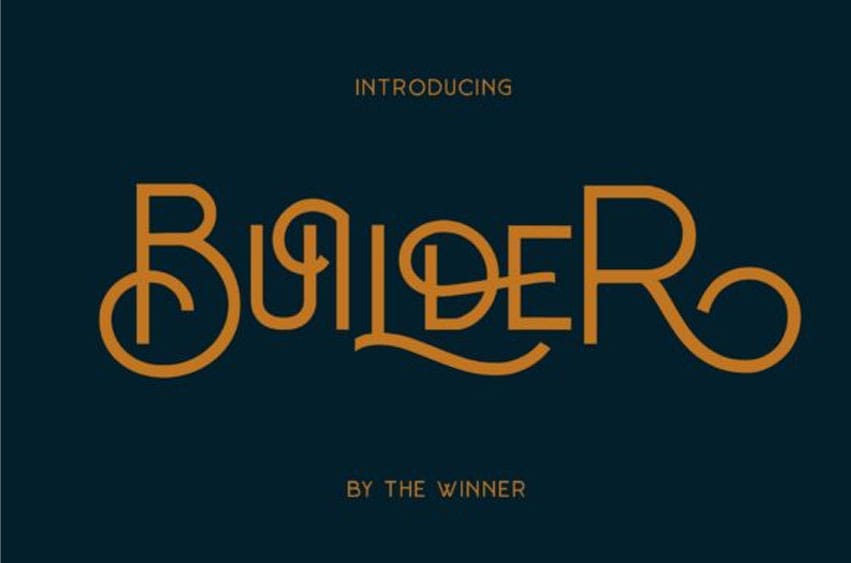
Builder Font is an elegant and unique display font.
It can be used for various purposes such as logos, wedding invitations, headings, t-shirts, letterhead, signage, labels, news, posters, badges and so much more.